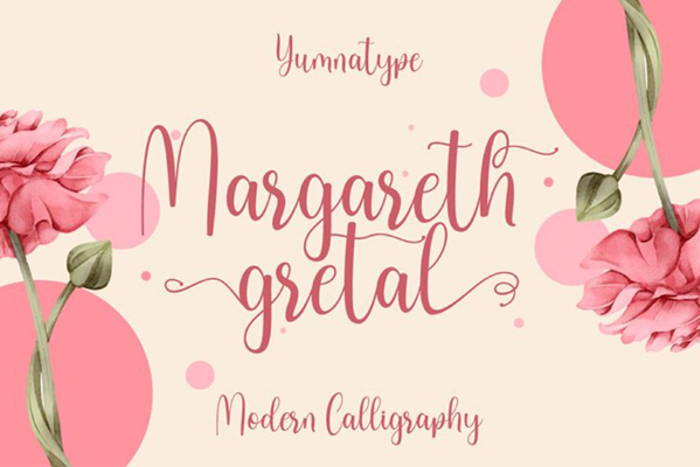
Margareth Gretal Font
Margareth Gretal is a beautiful script font with a natural and unique design will make your project more beautiful and powerful. The font is suitable for your branding project and any design.